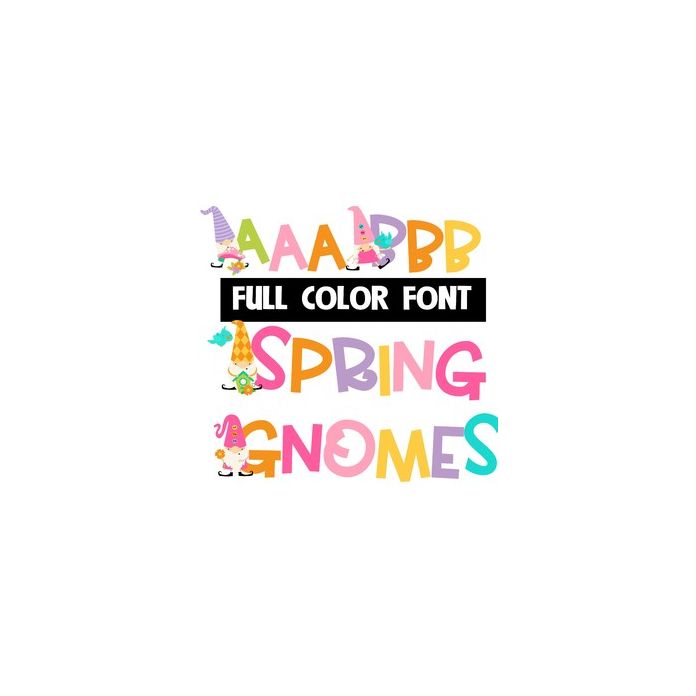
This full-color font features bright lettering with gnomes on the uppercase. There is a second alternative color lowercase you can access with Silhouette's Glyph map.